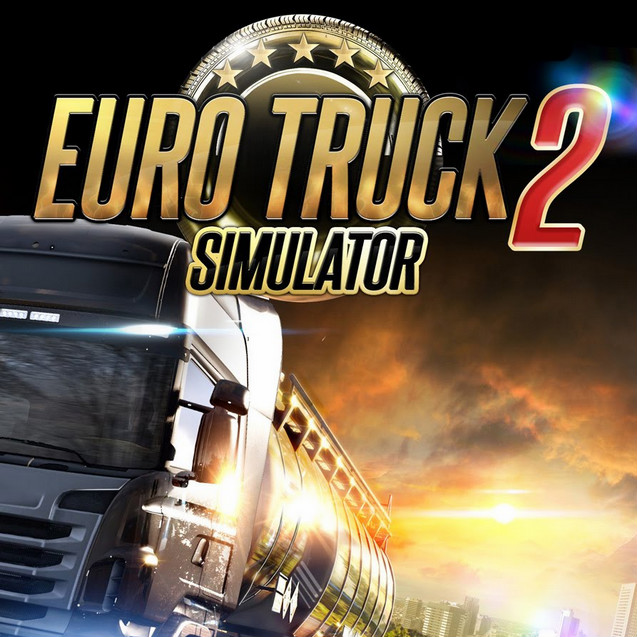
Euro Truck Simulator 2 Font
Fonts in UseEuro Truck Simulator 2 (ETS2) is a popular simulation video game developed by SCS Software. It allows players to experience the life of a truck driver, delivering cargo across Europe while building their own transportation empire.
The game's logo features the font Steelfish ExtraBold Italic, a condensed sans serif design by Ray Larabie. The font family includes 15 styles from UltraLight to ExtraBold. Some styles can be obtained for free from the Fonts Used Section, while the full font family is available for purchase here.